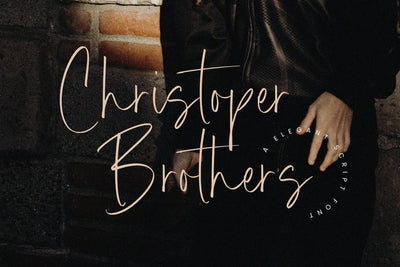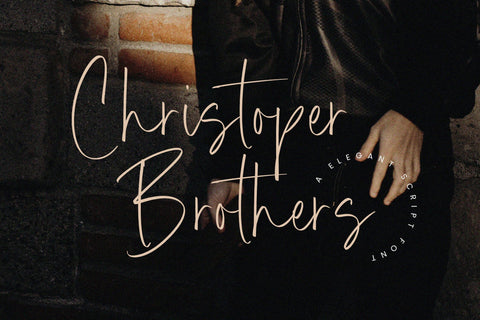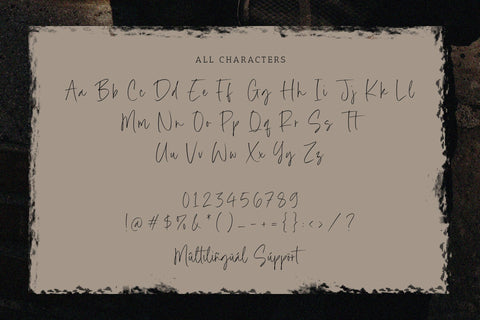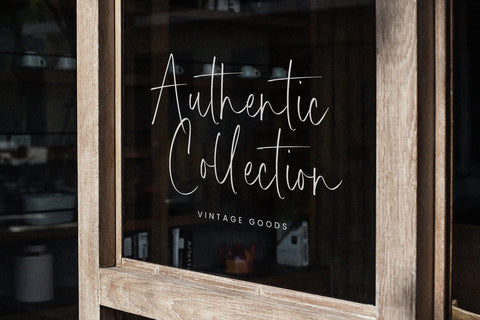
Christoper Brothers - Handwritten font
Proudly Present, Christoper Brothers
Christoper Brothers - Handwritten font , which was created with great care and specially created for you
Christoper Brothers is perfect for product packaging, branding project, megazine, social media, wedding, or just used to express words above the background.
– multilingual support.